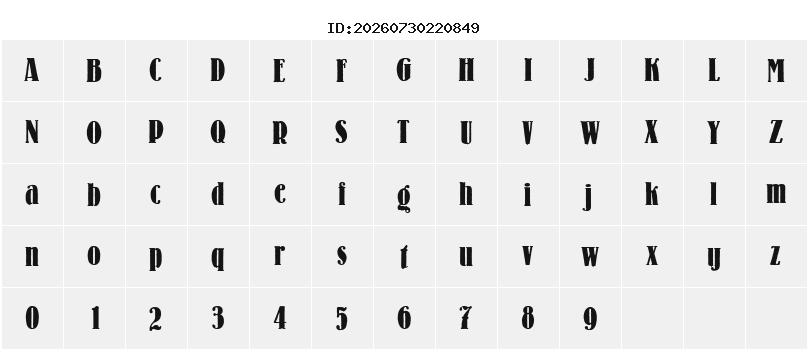
About LouisCond DB.ttf
LouisCond DB.ttf is a modern, elegant sans-serif font designed for ultimate readability and visual harmony. Perfect for branding, headlines, web design, and print materials.